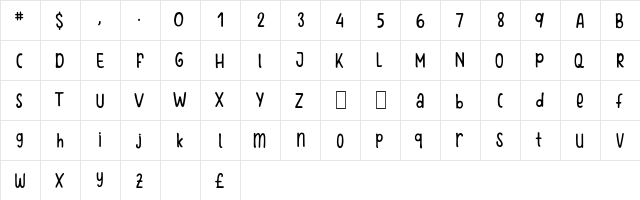
Winter Poppins Regular
| Foundry | Avotype Studio |
| Designer | Almunadiya |
Design Context for Winter Poppins Typeface
Winter Poppins takes a measured approach to typography — its balanced proportions and neutral character make it a reliable workhorse for both digital and print work.